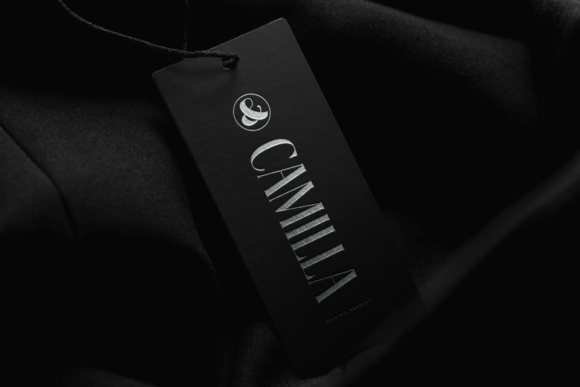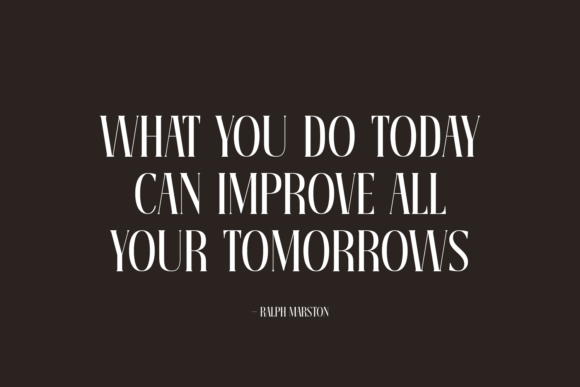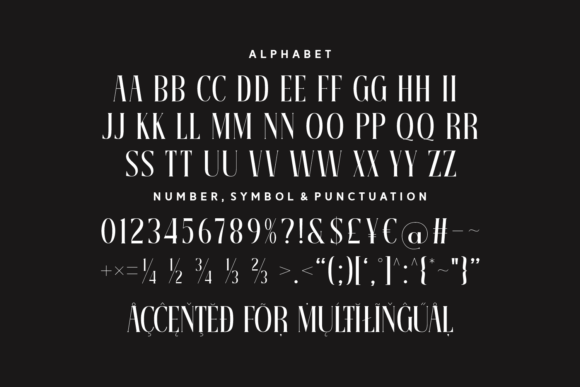
Introduction to Mindset Mature Font Font
Fonts play a crucial role in design, and the Mindset Mature Font font is a typeface that brings both character and versatility to any project. Whether you’re working on a branding project, a website, or a print design, the Mindset Mature Font font offers a unique style that can elevate your work.
Mindset Mature is a refined modern serif font featuring tall, narrow letterforms with elegant high-contrast strokes.
Its sleek design strikes the perfect balance between sophistication and bold presence, making it ideal for fashion editorials, branding, luxury packaging, and statement headlines Mindset Mature embodies elegance with confidence and style.
Key Features of Mindset Mature Font Font
Why Choose Mindset Mature Font Font?
The Mindset Mature Font font is more than just a typeface – it’s a design tool that helps you communicate your message with style and clarity. Its unique character set and versatile design make it suitable for a wide range of applications, from elegant invitations to bold headlines.
With its carefully crafted letterforms and balanced proportions, the Mindset Mature Font font ensures readability and visual appeal across all mediums.
What makes Mindset Mature Font font special?
The Mindset Mature Font font stands out with its unique design, exceptional readability, and versatility across various design applications.